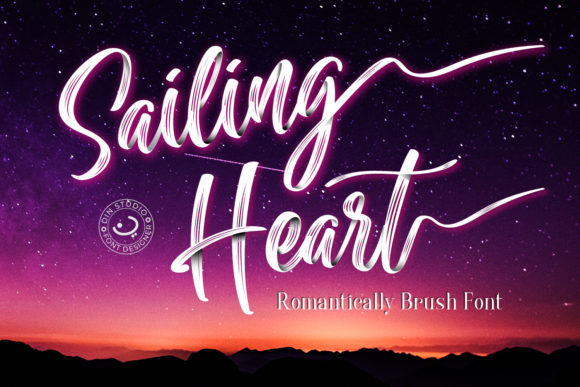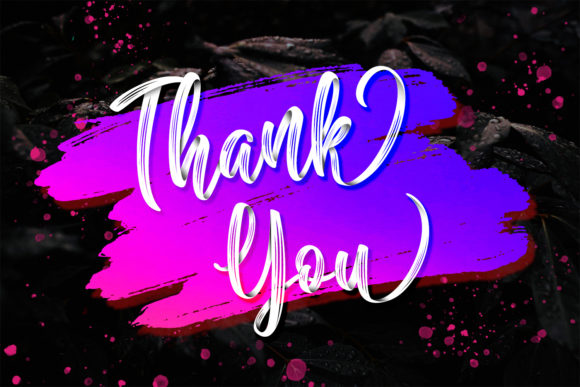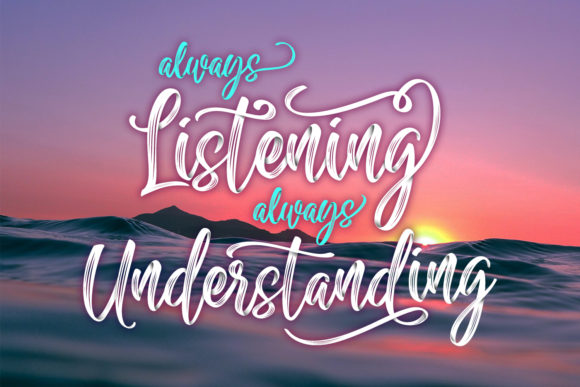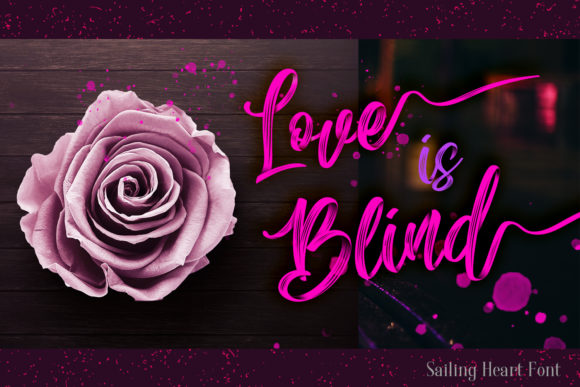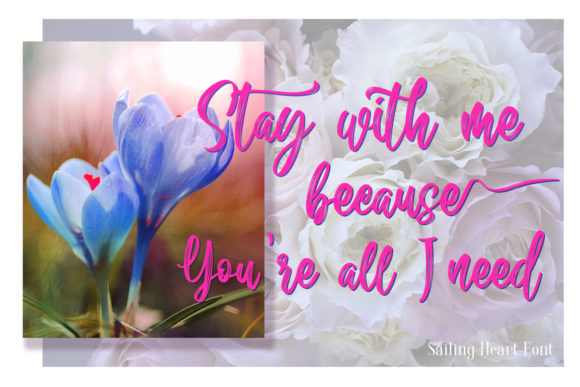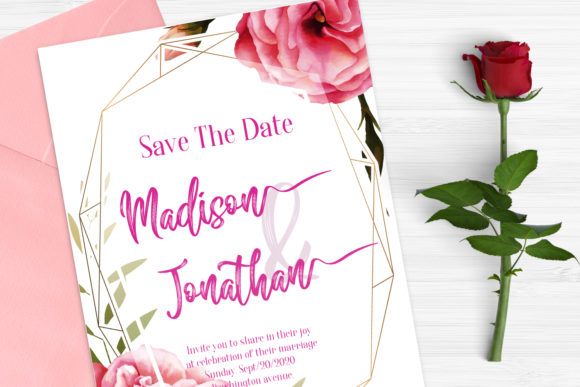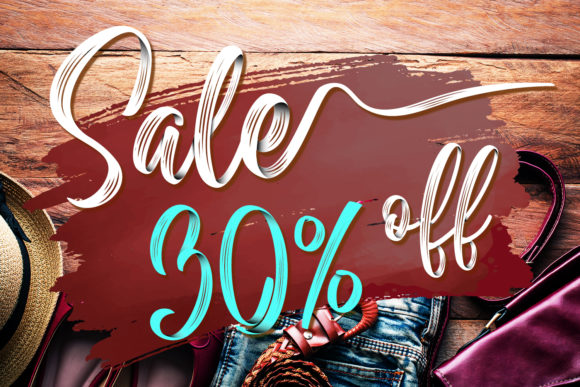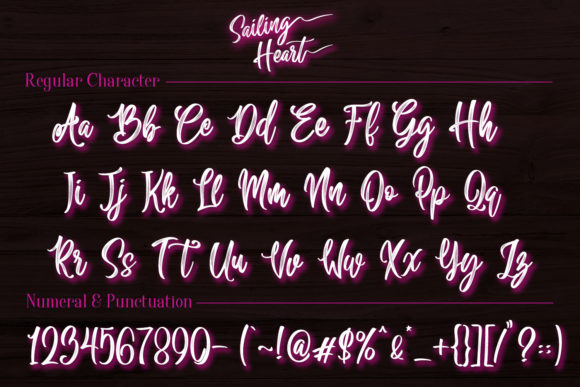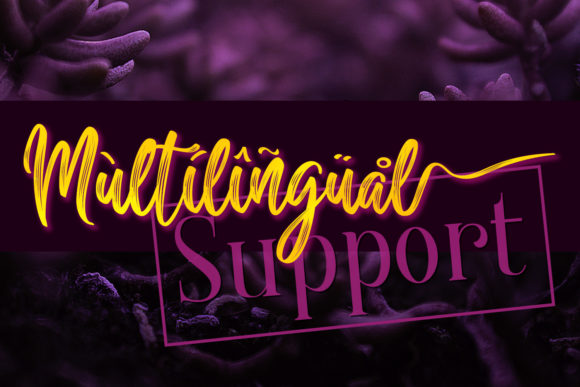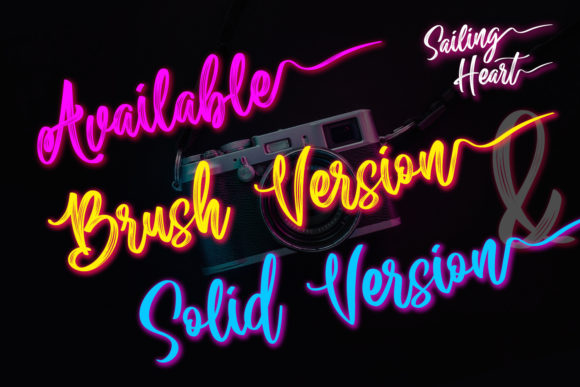
Sailing Heart Font
About Sailing Heart Font
Sailing Heart is a romantic handwritten font with lots of personality and a contemporary touch. It will effortlessly turn any design project into a stunner!